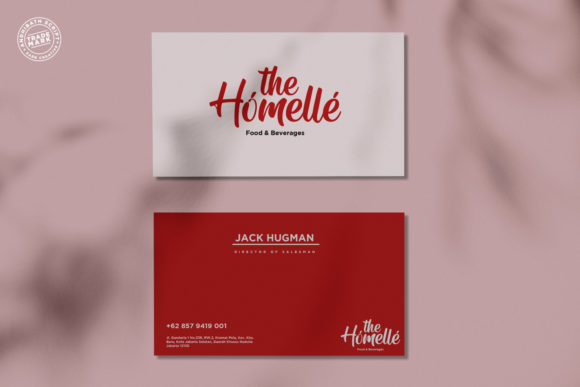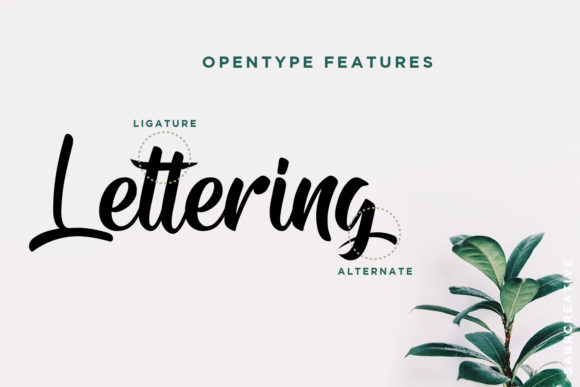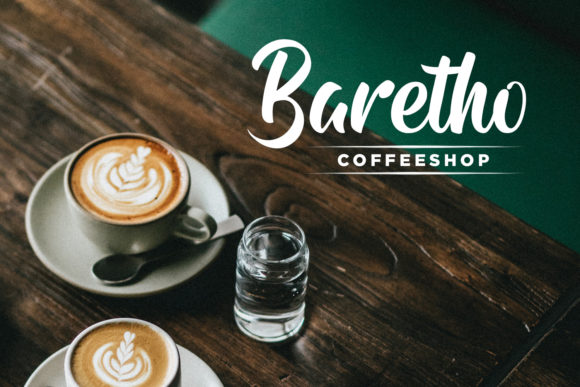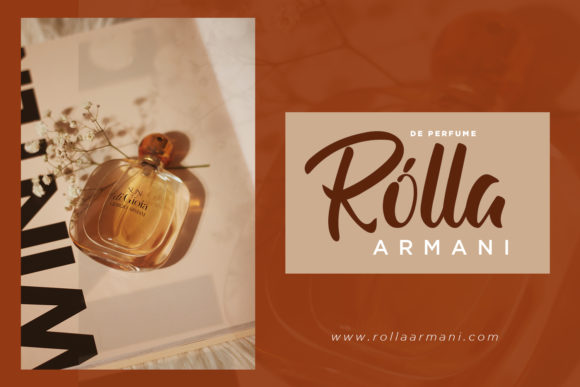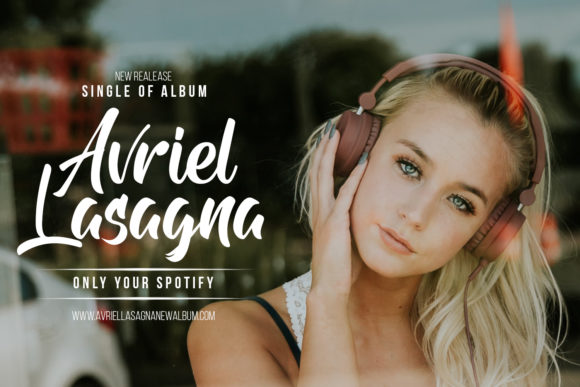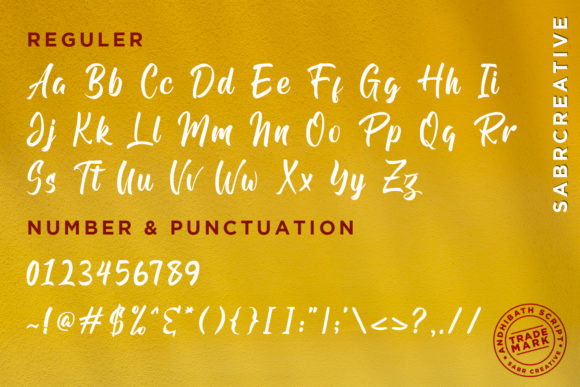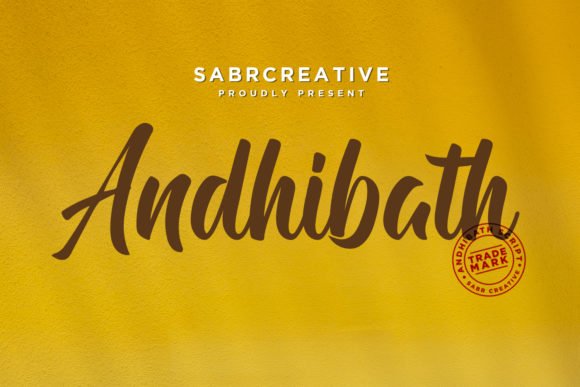
The Timeless Charm of Andhibath Font
As a designer, you’ve probably had one of those moments where you stumble upon a font that instantly transports you to a bygone era. For me, that moment came when I first laid eyes on the Andhibath Font. Its elegant script and classic feel had me hooked from the very beginning.
Andhibath Font is a beautifully crafted script that brings a touch of sophistication to any design project. Whether you’re working on a wedding invitation, a luxury brand’s marketing materials, or a historical-themed publication, this font is sure to make a lasting impression. Its timeless appeal is precisely what makes it so valuable for designers – it never goes out of style.
With its versatility and classic charm, the Andhibath Font is an essential addition to any designer’s toolkit. In this article, we’ll delve deeper into the world of Andhibath Font and explore its many uses and benefits.
Key Features of Andhibath Font
- Unique Characteristics: Andhibath features a unique blend of traditional and modern design elements, with intricate details and ornaments, making it perfect for creative and artistic projects.
Andhibath Font Review
Overall, I’d say the Andhibath Font is a decent choice for designers, but it has its limitations. Here’s a breakdown of what works well and what doesn’t.
- Unique aesthetic: The Andhibath Font has a distinct, hand-drawn feel that sets it apart from other fonts.
- Readability: The font is relatively easy to read, even at smaller sizes.
- Support for various languages: The font includes a wide range of language support, making it a good choice for international projects.
- Limited flexibility: The font’s unique aesthetic can also make it feel a bit rigid and inflexible.
- Not ideal for body text: While the font is readable, it’s not the best choice for large blocks of text, as it can start to feel overwhelming.
- May not work well for small text: The font’s distinctive lines can make small text feel cramped and difficult to read.
The Andhibath Font is a solid choice for designers who want to add some visual interest to their projects. While it has some limitations, it’s a great option for headings, titles, and other display text. Just be mindful of its limitations and use it judiciously.
Tips for Getting the Most Out of Andhibath Font
For optimal results, use Andhibath Font in combination with other creative elements, such as graphics and images. Experiment with different font sizes and styles to create visual interest. Use Andhibath Font for headings and titles to add a touch of elegance and sophistication.
Andhibath Font is suitable for a variety of applications, including:
– Luxury branding and marketing materials
– High-end event invitations and programs
– Magazine and newspaper headlines and titles